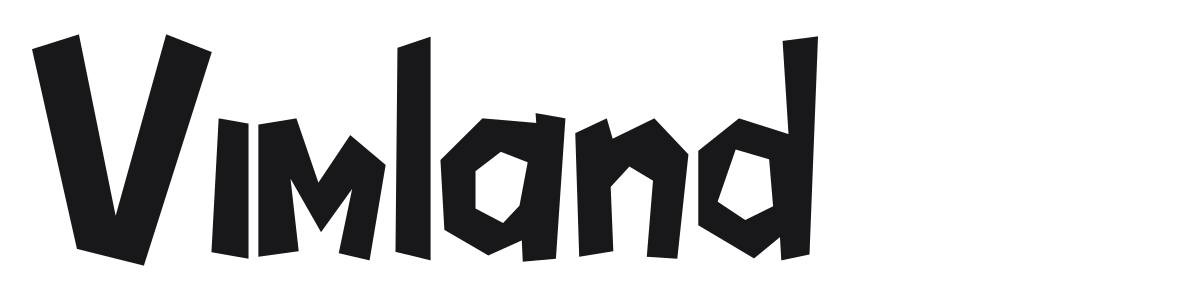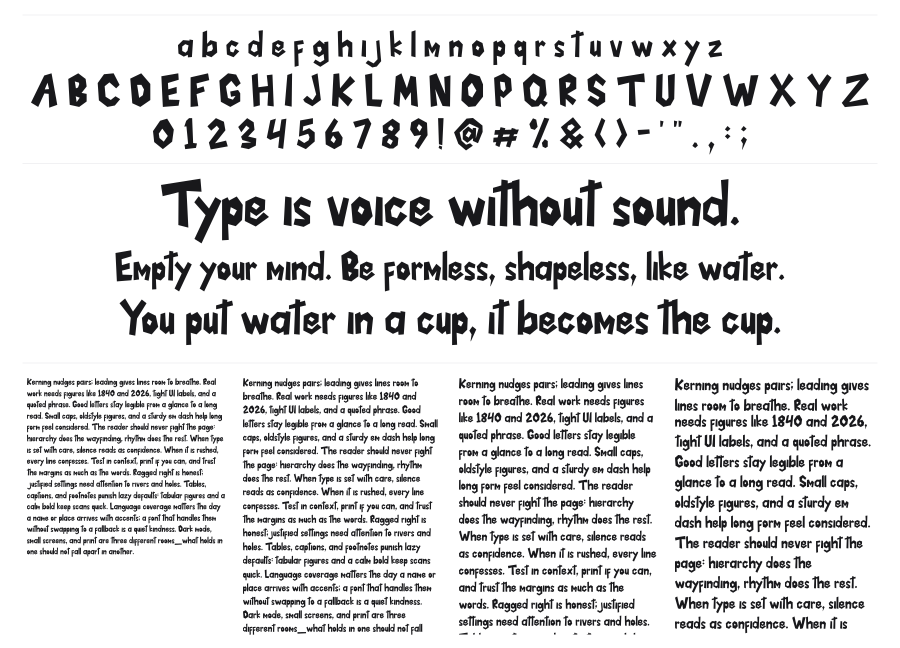
Vimland
Vimland is a heavy display font built from thick, irregular strokes with sharp notches and angular cuts that give it a raw, distorted character. The design sits somewhere between techno geometry and gothic roughness, a combination that makes it hard to ignore at large sizes. Strong for posters, game titles, and any project that needs visual aggression.